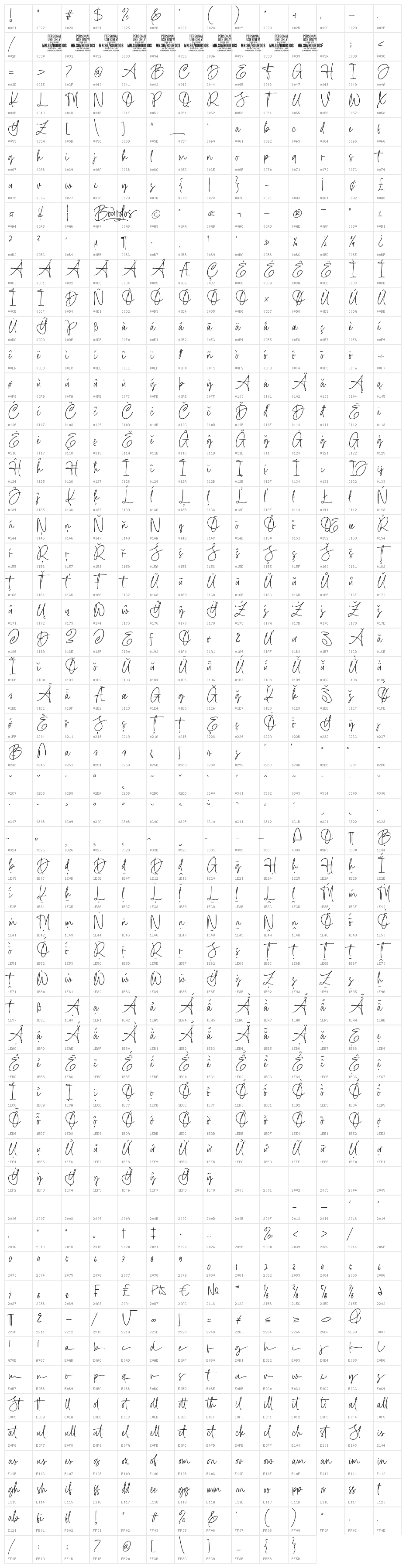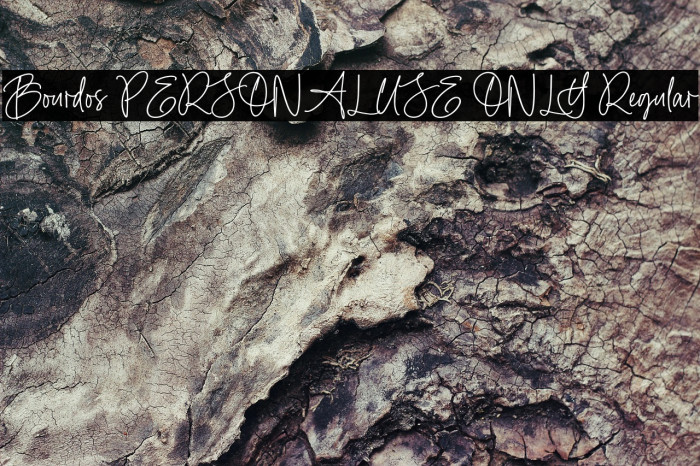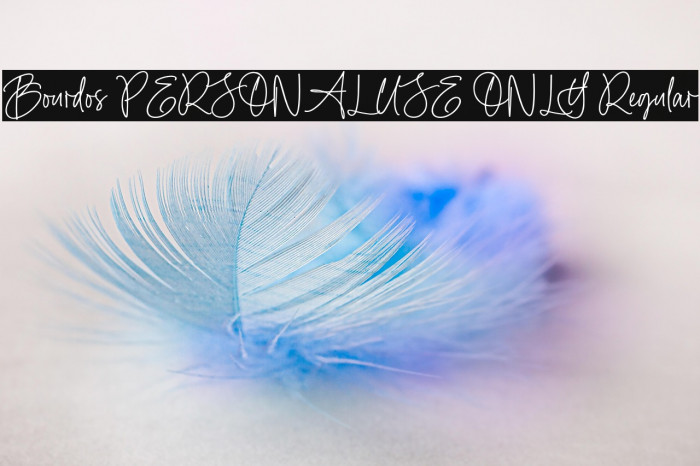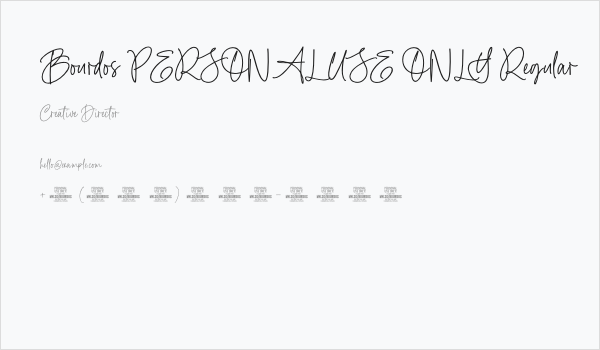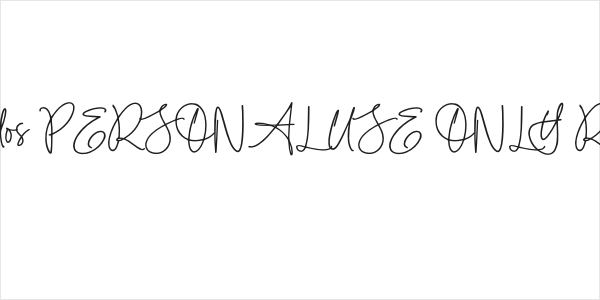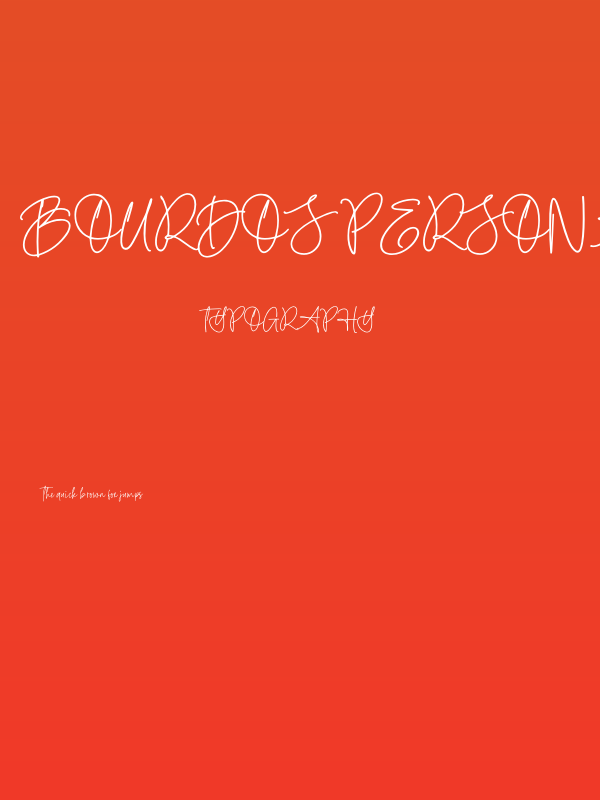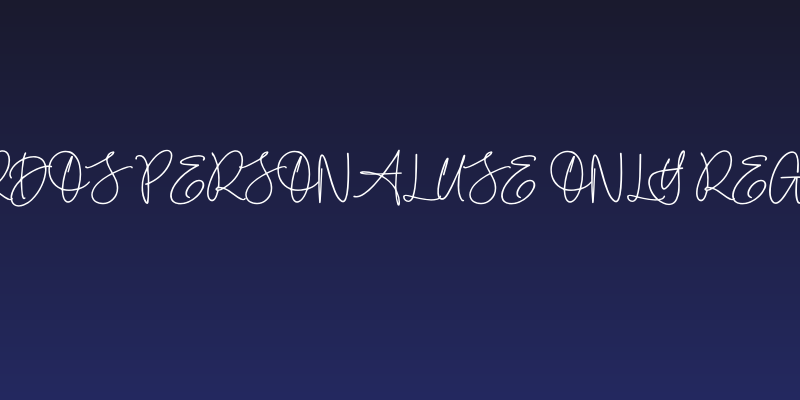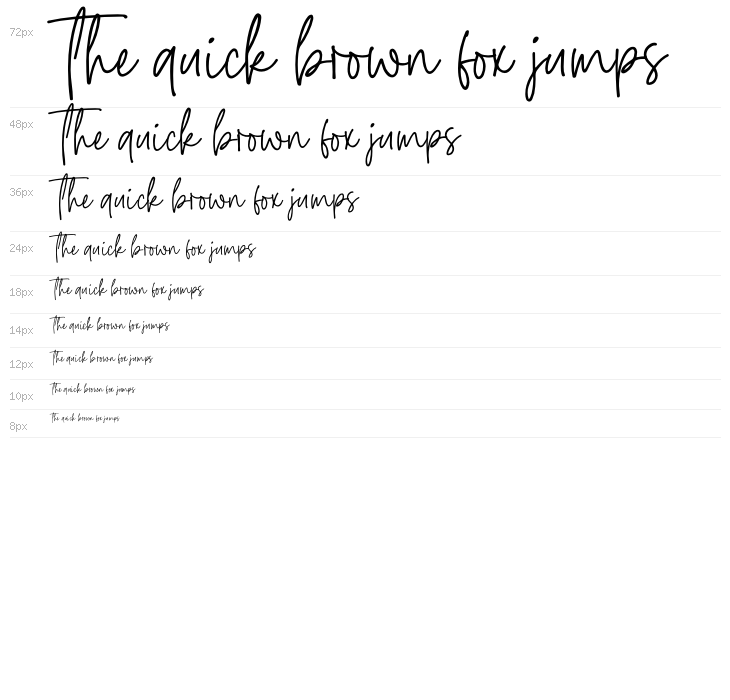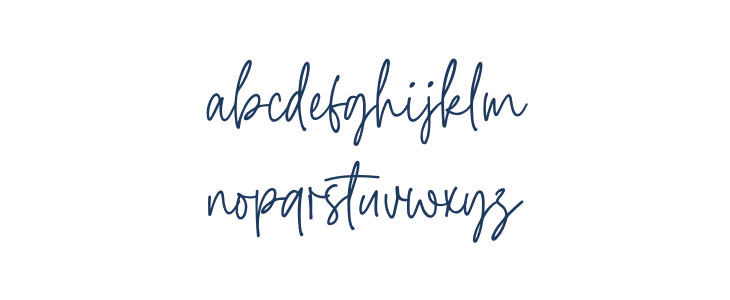
Bourdos PERSONAL USE ONLY Regular Font
Bourdos PERSONAL USE ONLY Regular Description
This font features a playful and expressive handwritten style, characterized by its fluid and dynamic strokes. The uppercase letters are tall and slightly slanted, giving a sense of movement and energy. The lowercase letters maintain a consistent flow, with some letters extending below the baseline, adding to its casual and informal appearance. The numerals and special characters are crafted with the same lively touch, ensuring a cohesive look across all elements. This font's unique personality makes it stand out, ideal for projects that require a personal and artistic touch.